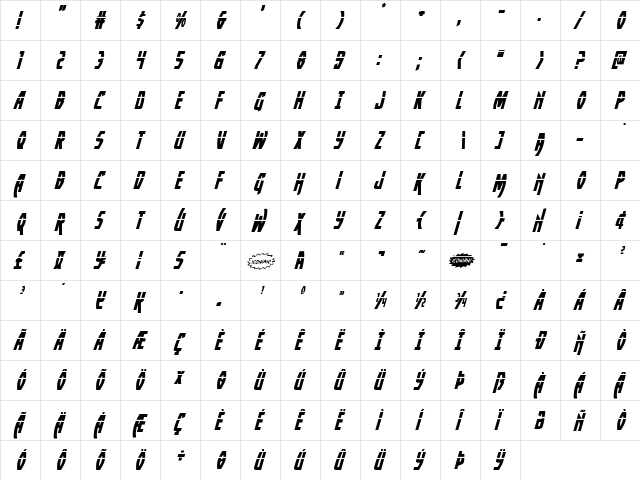
Yankee Clipper Laser Italic Italic
Design Context for Yankee Clipper Laser Italic Typeface
Yankee Clipper Laser Italic is a composed and adaptable typeface that performs quietly and consistently across a wide range of design contexts. The slanted form adds forward momentum and visual energy.
Pro Tip: Use Yankee Clipper Laser Italic for emphasis, pull quotes, and subheadings where its slanted energy can add rhythm to the layout.